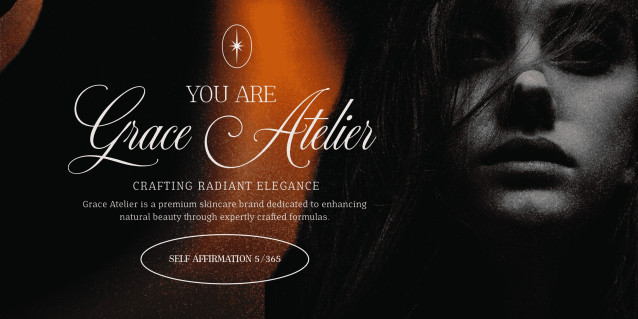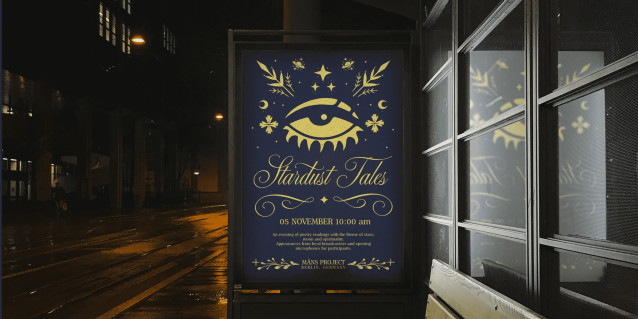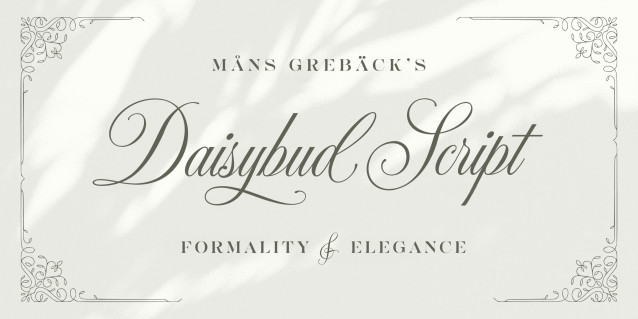
Daisybud Script Font
Daisybud Script Font is a modern interpretation of an elegant and flourishing typeface. The font has an fine, airy feel and with long, flowy connections, created for delicate headlines, a intricate logotypes or a custom invitation card for a beautiful event. There is a calm and soft vibe to the swirly lines, adding to the sophistication.
Daisybud Script is built with advanced OpenType functionality and guaranteed top-notch quality, containing stylistic and contextual alternates, ligatures and more automatic and manual features; all to give you full control and customizability.
It has extensive lingual support, covering all Latin-based languages, from North Europa to South Africa, from America to South-East Asia. It contains all characters and symbols you’ll ever need, including all punctuation and numbers.
Mans Greback put together this decorative script font, giving it a charming personality and an finesse touch.